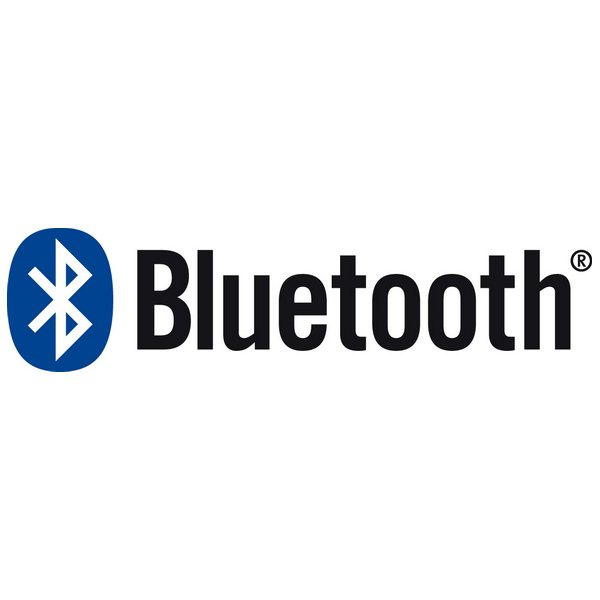
Bluetooth Font
ElectronicsBluetooth is a wireless technology for exchanging data between devices over short distances. It operates on a 2.4 GHz frequency and allows for simple, seamless communication without the need for cables.
The Bluetooth icon combines two Nordic runes similar to the Latin letters H (Haglaz) and B (Berkanan). The accompanying Bluetooth logo was created using a font similar to Steve Jackaman's Gothic Medium Condensed. This font is a commercial product and more information can be found about here.